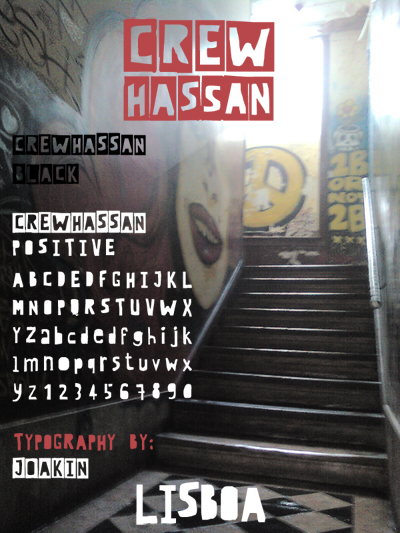
CrewHassan Positive by Kin and Joakin is a free distorted cartoon display font with stout, uneven letterforms. The strokes swell and pinch unpredictably, and the rounded corners keep the rough shapes from feeling harsh. Irregular widths give the lettering a hand-cut, slightly unruly look.
Merchandise is a natural setting for its chunky silhouettes, especially on T-shirts and stickers built around comic or skate-inspired graphics. It also suits music posters and children's publishing, where the crooked forms can support an informal, mischievous voice. On illustrated packaging, the letters can echo blobs, torn paper, or hand-drawn creatures and become part of the artwork itself.
Font for CREW_HASSAN Cultural Cooperative, Lisbon